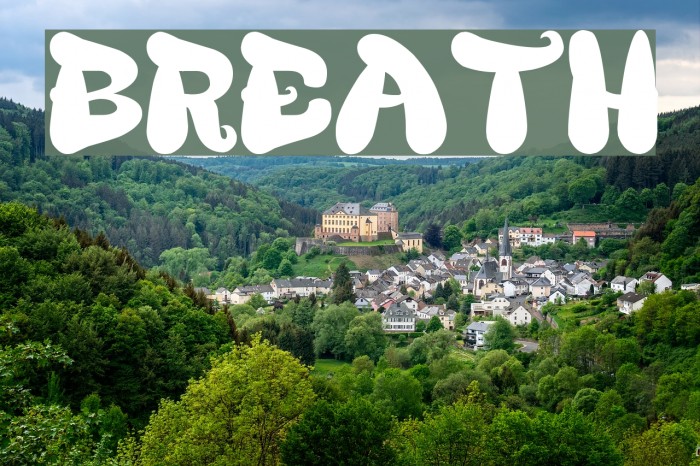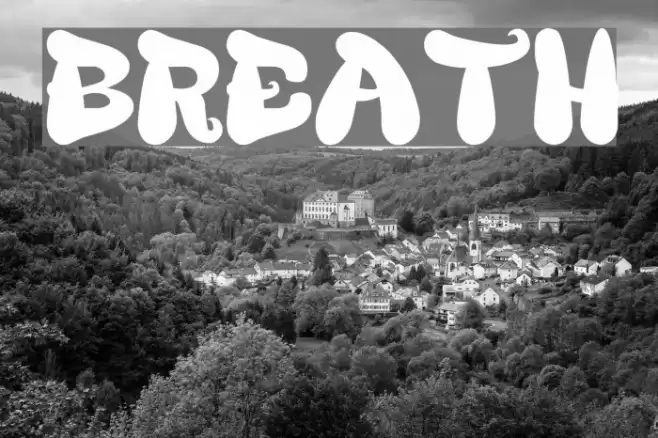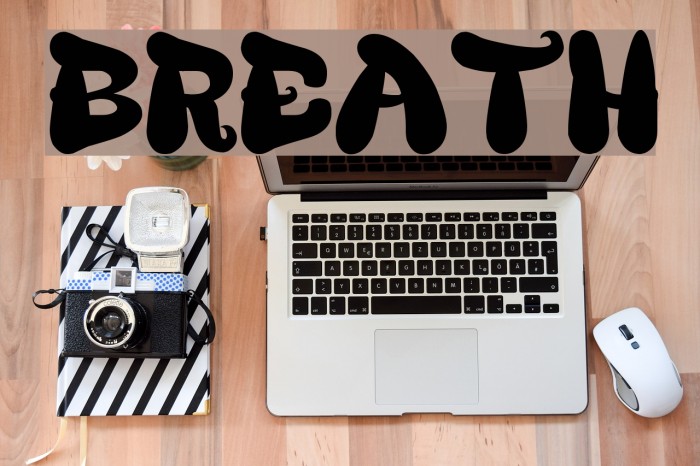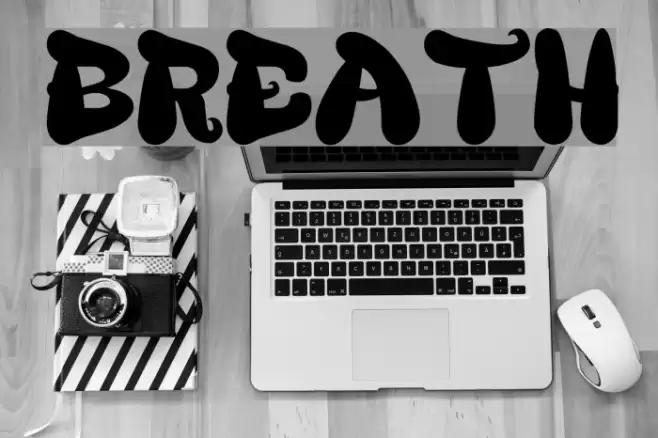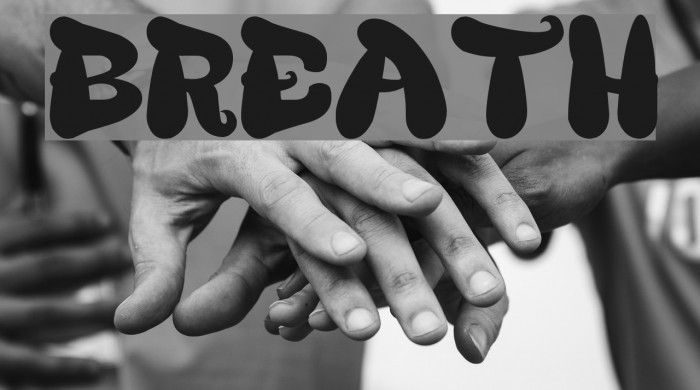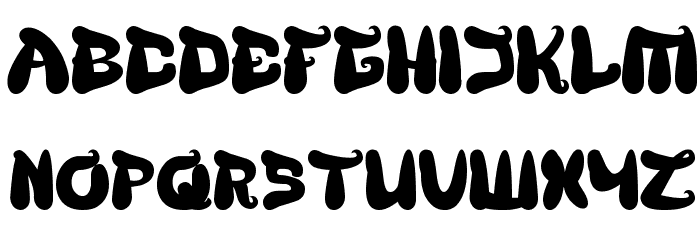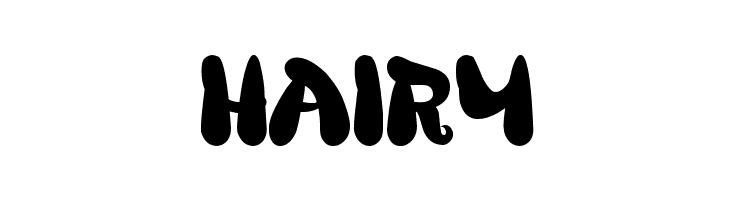
BREATH Font
BREATH Description
This font features a bold and playful design with a distinctly decorative style. Each character is crafted with a unique, whimsical flair, incorporating subtle curves and swirls that add a sense of movement and energy. The letters are thick and substantial, making them highly visible and impactful. The overall appearance is both modern and artistic, with a touch of retro charm. The font's boldness and decorative elements make it ideal for creative projects that require a standout typeface.
| Overall Style | Modern, Decorative |
| Proposed Projects | Ideal for posters, logos, branding, and any project requiring a bold, artistic touch. |